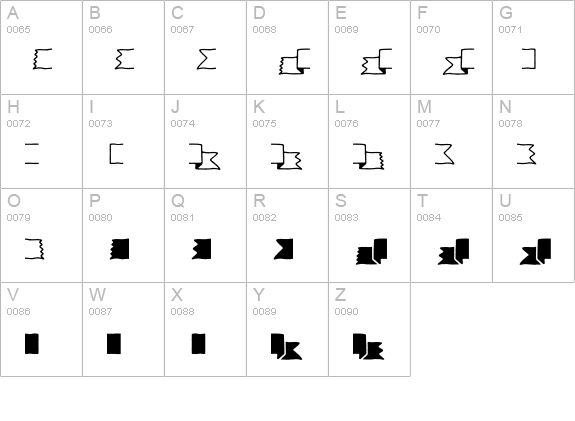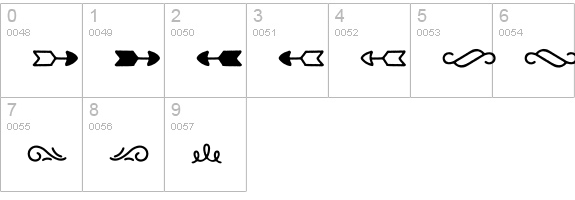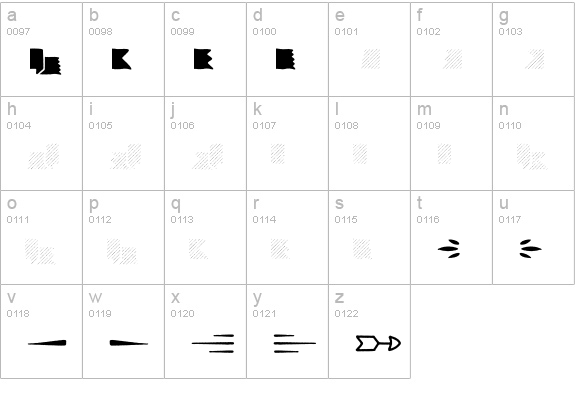
Introducing the captivating Intro Goodies Banners & Endings font, designed to add a touch of elegance and charm to your projects. This exquisite font features intricate details and ornate embellishments, perfect for creating eye-catching banners, titles, and endings that stand out from the crowd. With its versatile style, Intro Goodies Banners & Endings font is ideal for a wide range of design projects, from invitations and greeting cards to posters and social media graphics. Best of all, this stunning font is available for free download at FontsMarket.com, allowing you to unleash your creativity without breaking the bank. Whether you're a seasoned designer or just starting out, Intro Goodies Banners & Endings font is sure to inspire and delight with its timeless beauty and unique flair. Elevate your designs with this exquisite font and make a lasting impression on your audience.